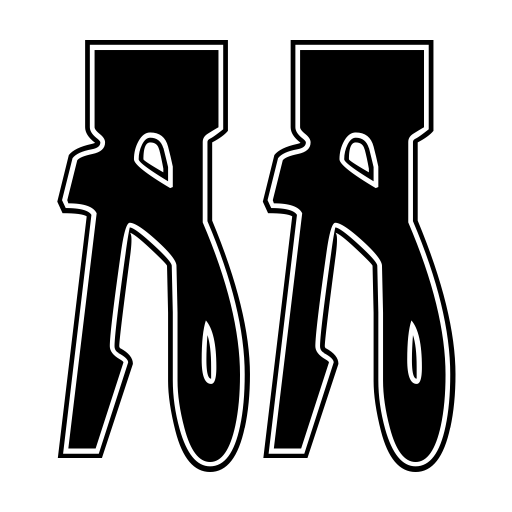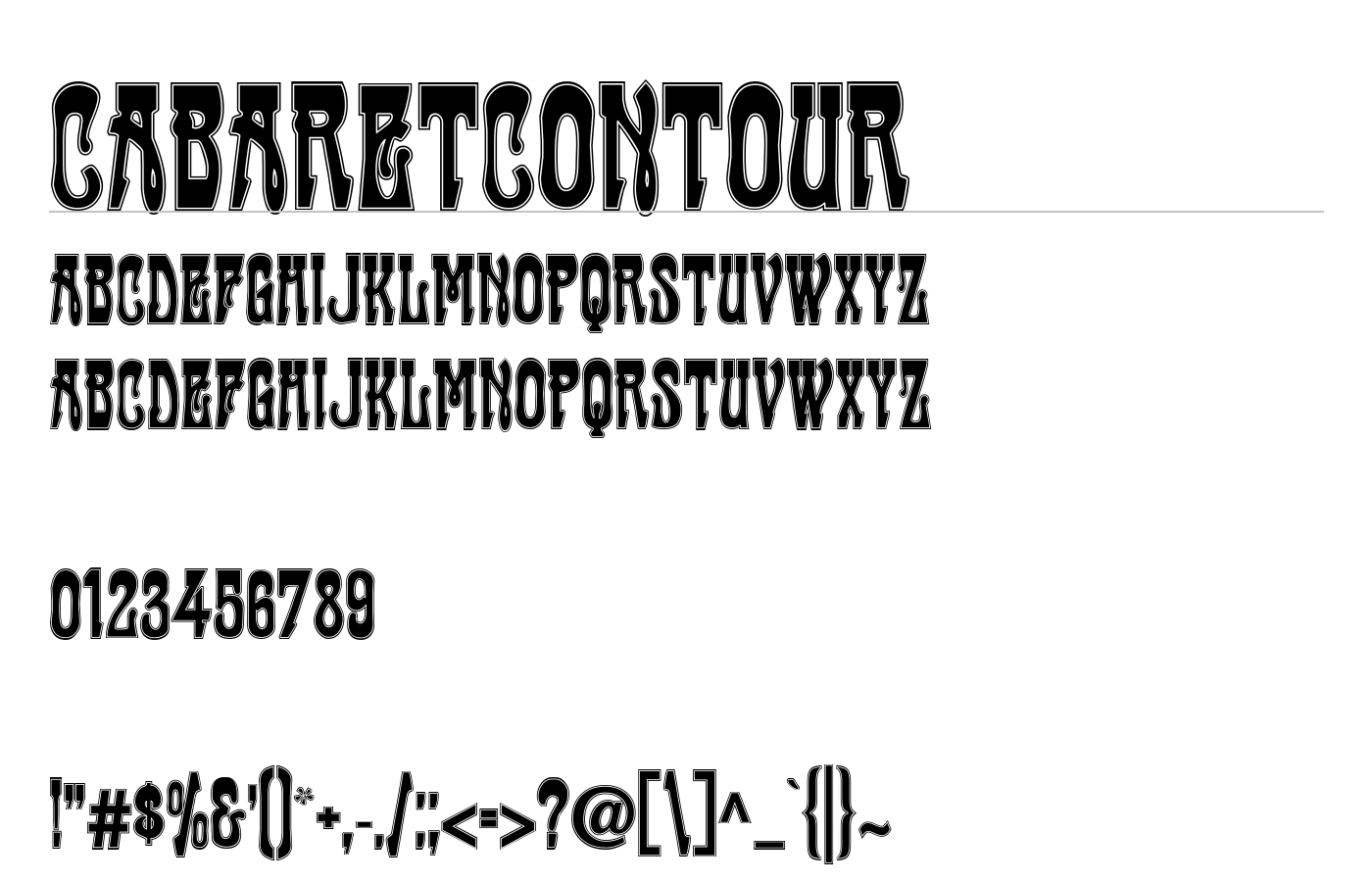
CabaretContour is a bold, condensed display font featuring decorative, serif-style letterforms with a strong vintage circus or western vibe. Its high contrast and ornamental details make it perfect for eye-catching headlines, posters, and branding that aims to evoke a playful, nostalgic, or theatrical mood. This font works best in creative and bold contexts where a unique, lively personality is desired.
CabaretContour Font
About CabaretContour Font